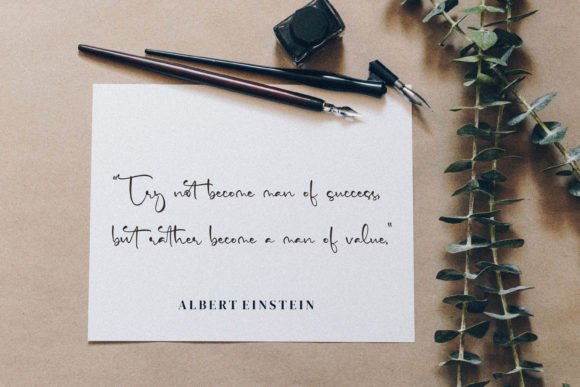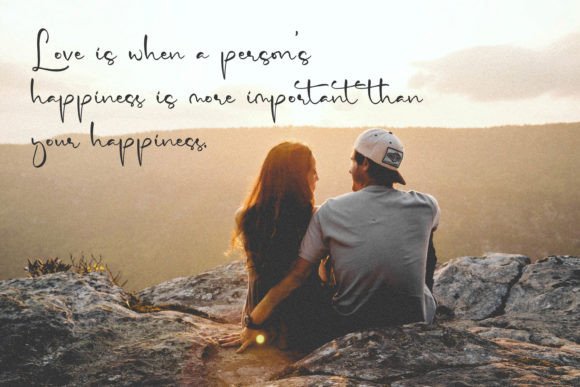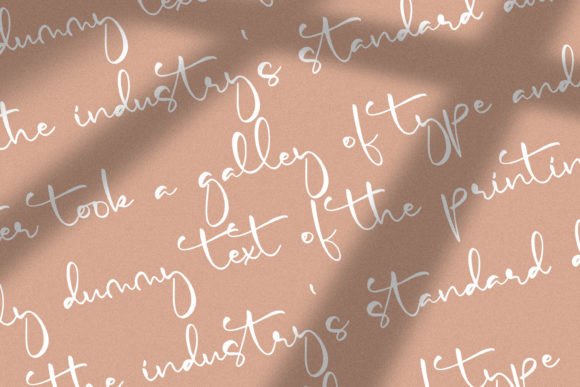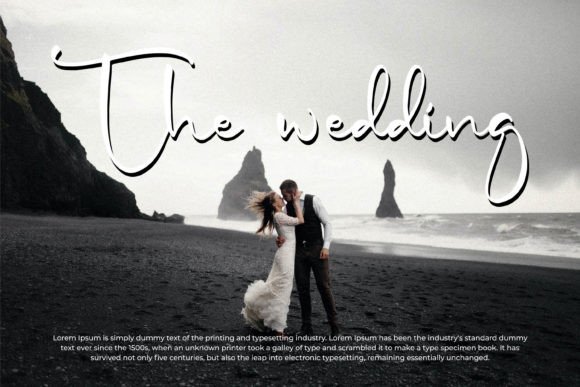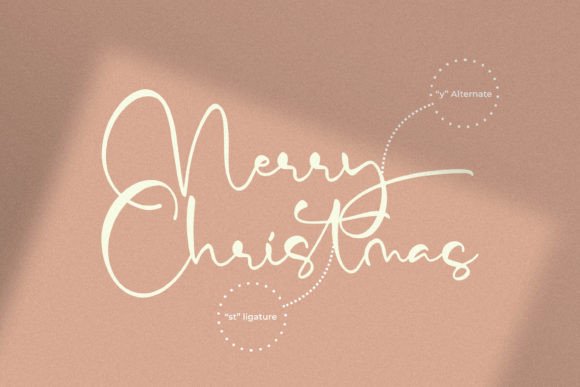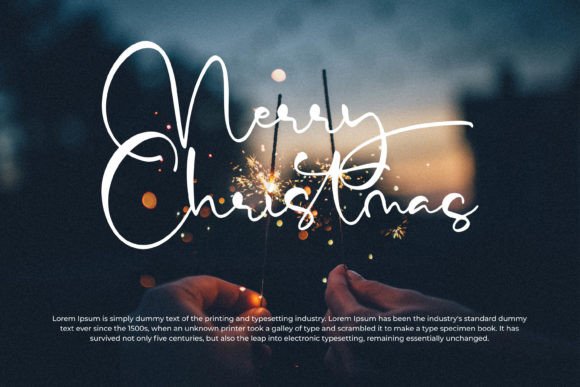
Introduction to Mytchell Trujillo Font
Enter the Mytchell Trujillo Font – a dazzling script font that’s sure to be a game-changer for designers of all levels. With its high-quality, intricately crafted details, this font is a valuable addition to any design library. Whether you’re working on a free download project or a paid design job, the Mytchell Trujillo Font has the potential to transform your creation and make it truly unforgettable.
Honest Review: Mytchell Trujillo Font
I recently stumbled upon the Mytchell Trujillo Font, and I must say it’s been a game-changer for my creative projects. As a designer, I’m always on the lookout for high-quality fonts that can elevate my designs and make them stand out.
One of the things I love about the Mytchell Trujillo Font is its unique style and versatility. ✨ It’s perfect for a wide range of creative projects, from logos and branding to typography and web design. Plus, it’s a free download, making it an amazing resource for designers on a budget.
That being said, I do have one limitation to note: ⚠️ it may not be suitable for projects that require a more formal or traditional font style. However, for most creative projects, I think the Mytchell Trujillo Font is an excellent choice.
Overall, I’m really impressed with the Mytchell Trujillo Font and would highly recommend it to any designer looking for a unique and high-quality font to add to their design arsenal.